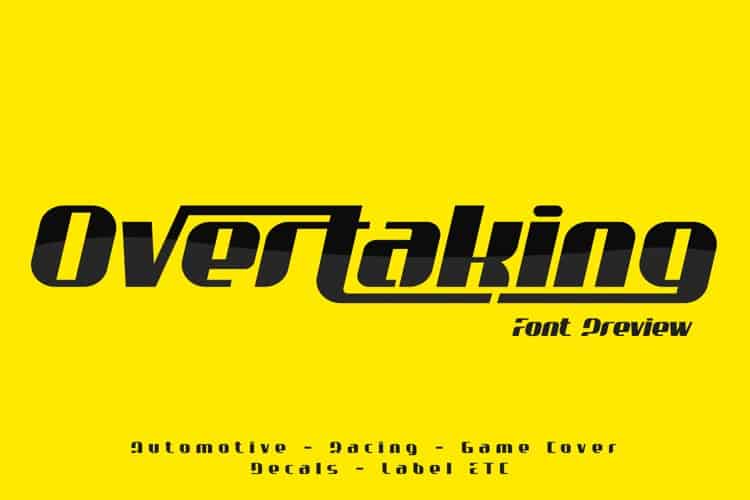
Overtaking Font
Overtaking Display Font is a bold and vintage type with high contrast character. It’s designed and shared by Mhdafifersya. It’s very suitable for vintage, retro and adventure theme design such as logo, branding, badge, label, t-shirt, merchandise etc.